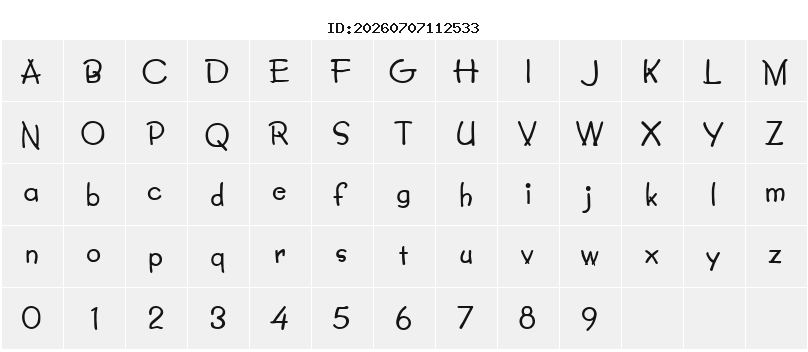
• Font Name: Delano
• Full Font Name: Delano Regular
About Delano.ttf
Delano.ttf is a modern, elegant sans-serif font designed for ultimate readability and visual harmony. Perfect for branding, headlines, web design, and print materials.